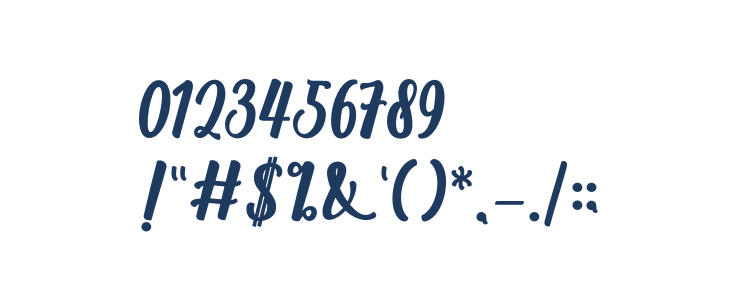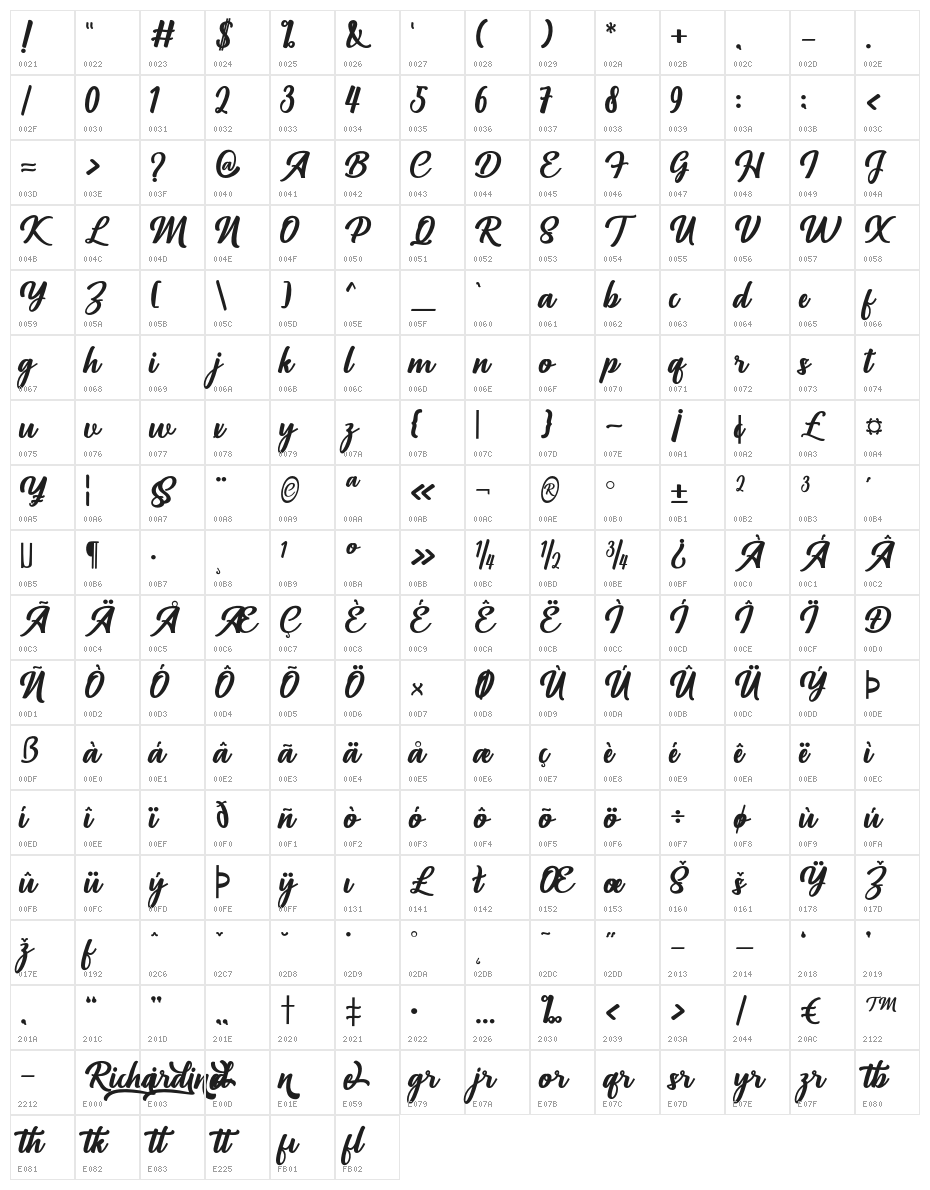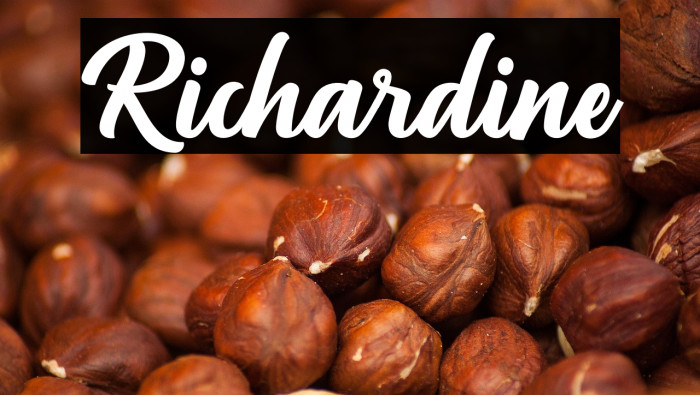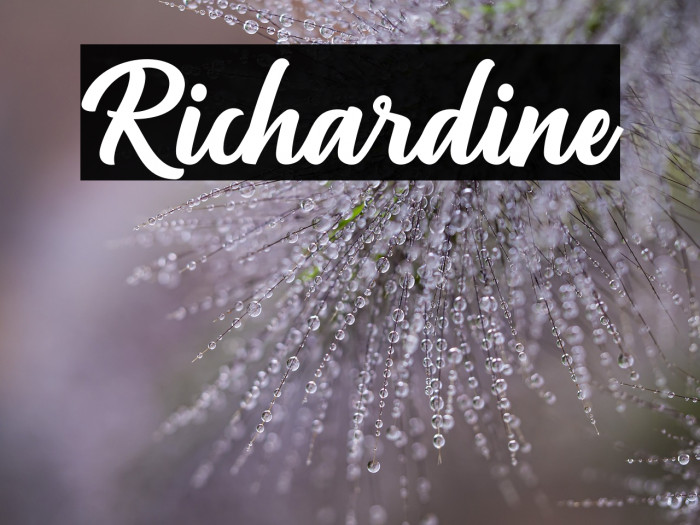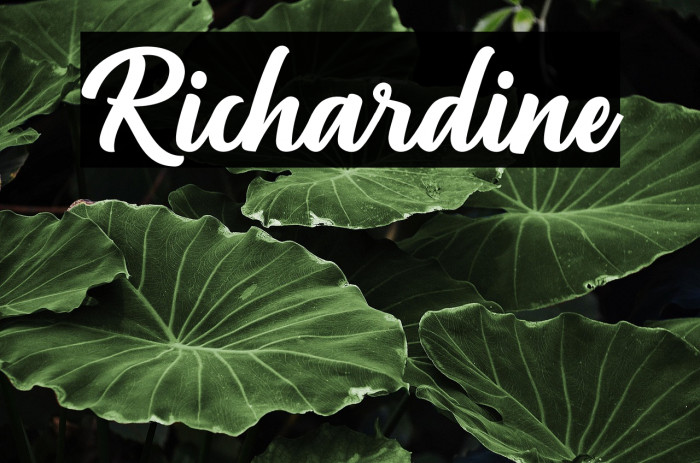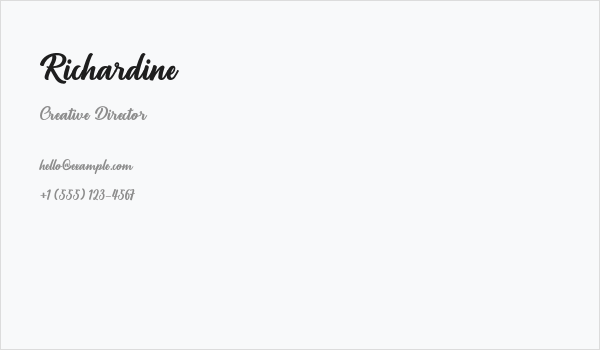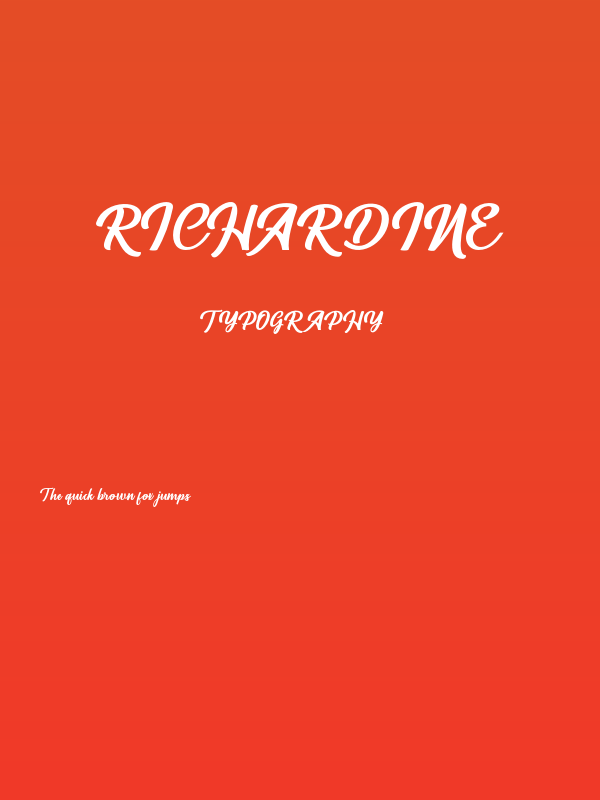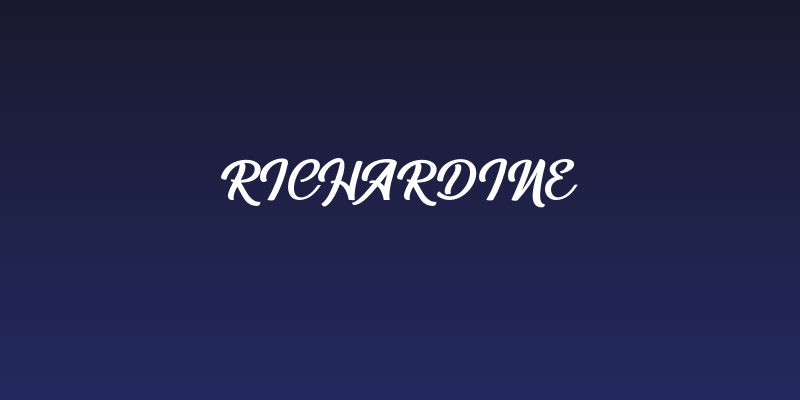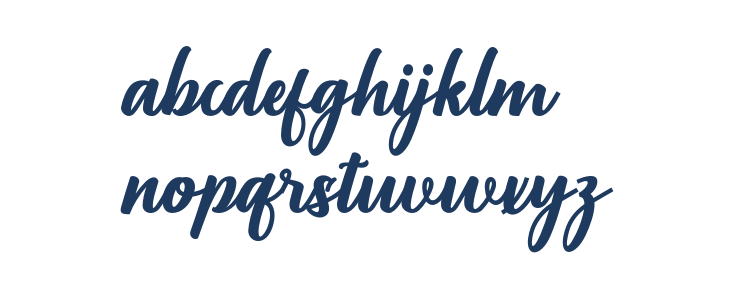
Richardine Font
Richardine Description
This font features a bold and flowing script style, characterized by its elegant and smooth curves. The uppercase letters are slightly more formal, with a consistent slant and rounded edges, while the lowercase letters exhibit a more playful and dynamic appearance. The numbers maintain the same fluidity, ensuring a cohesive look across all characters. Special characters are designed to match the overall aesthetic, making them suitable for decorative purposes. The font's bold weight and high contrast between thick and thin strokes add to its striking appearance, making it ideal for eye-catching designs.